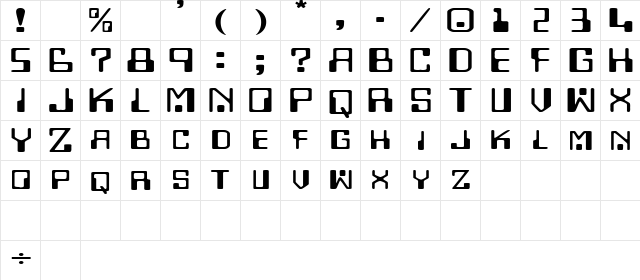
DigitalMachineExtended Regular
Design Context for DigitalMachineExtended Typeface
DigitalMachineExtended channels digital-age aesthetics through its sharp, structured letterforms — ideal for brands that want to signal innovation.
Pro Tip: Use DigitalMachineExtended in combination with a neutral sans for body text. Let it define the brand voice in headlines while keeping reading comfortable elsewhere.